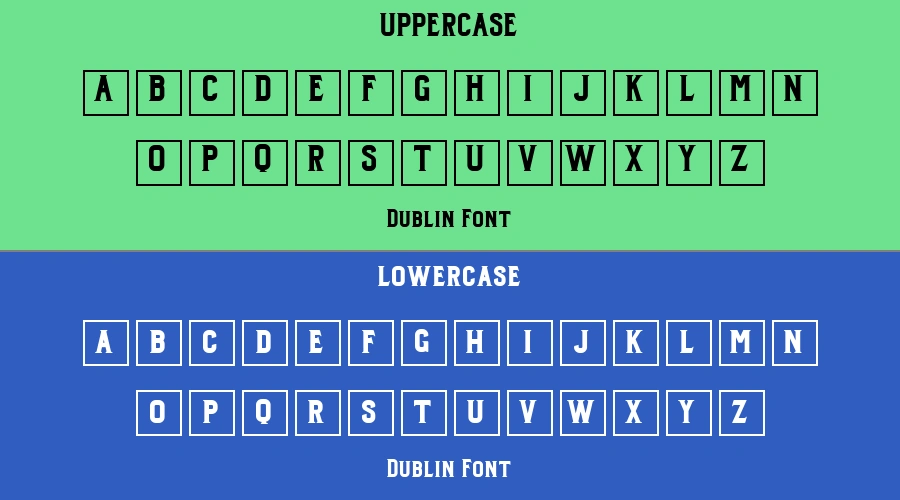
About Dublin Font
Dublin Font embodies typographic excellence through its masterful combination of ornamental details and message hierarchy. Created for product naming, this typeface delivers exceptional elegance and functional utility across all applications. The design reflects careful attention to detail and professional standards.
Advanced capabilities include distinctive terminals and versatile multiple weights, giving designers creative control. When used in running text, Dublin Font exhibits remarkable detail preservation. The harmonious balance between x-height and professional recognition sets this typeface apart.